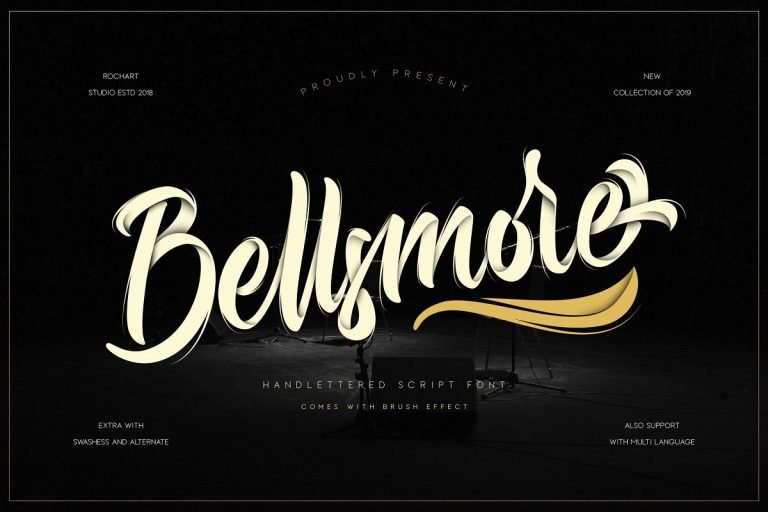
Bellsmore Brush Font
Bellsmore Font – This is handwritten font written with a brush pen. Using in ink or watercolor based designs or on its own as bold hand-brushed lettering. Bellsmore designed and shared by Rochart. Bellsmore Font is a font that contains more of alternate and some swashess. This fonts designed to complement each other in their use. Bellsmore brush script is perfect for logo design, t-shirts, flyers, apparel, packaging, advertising, wedding Invitation etc.